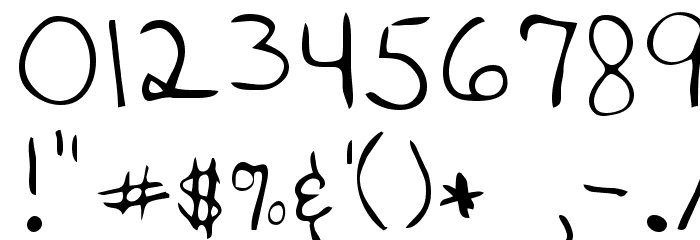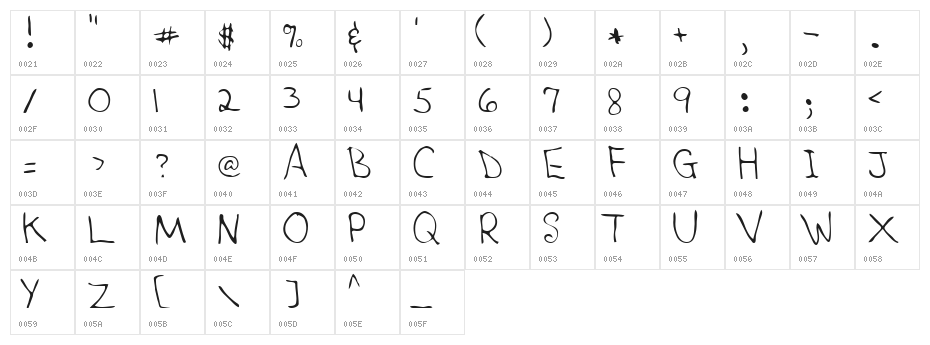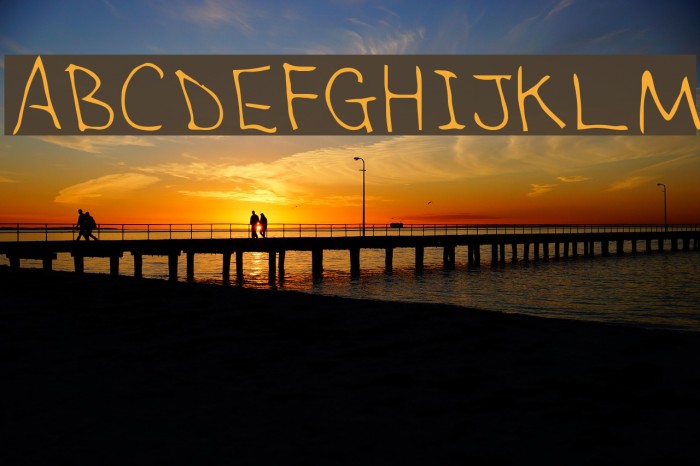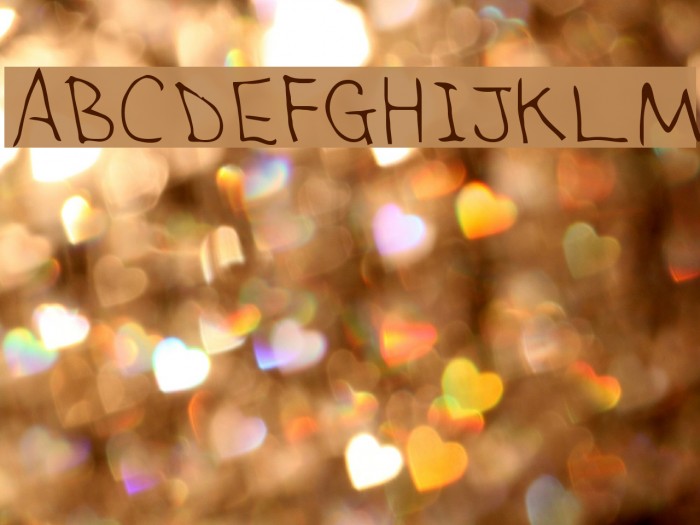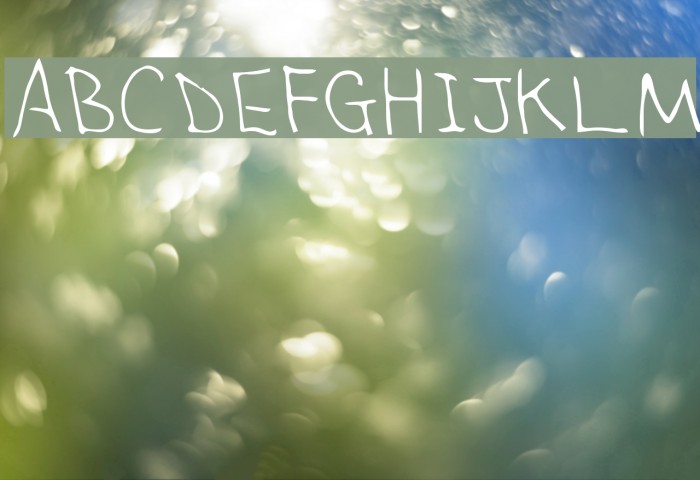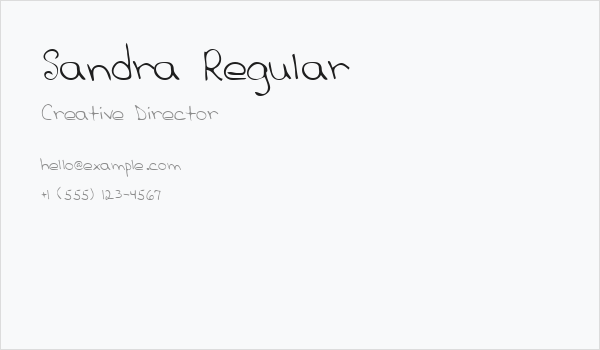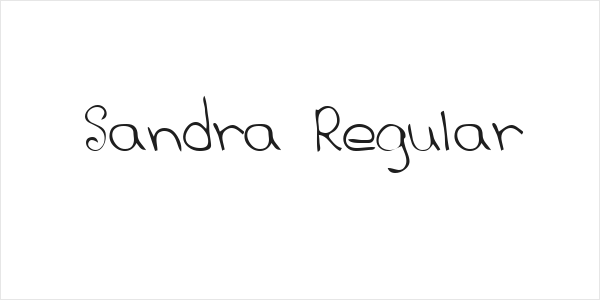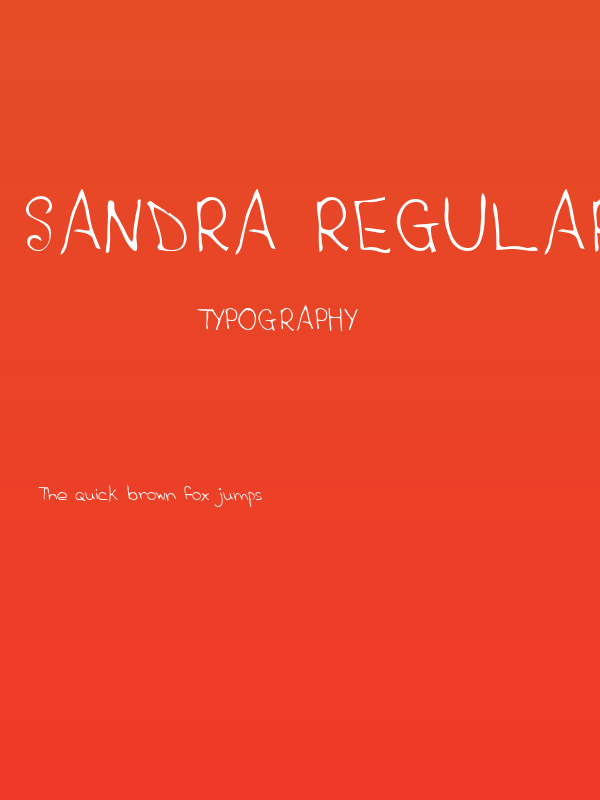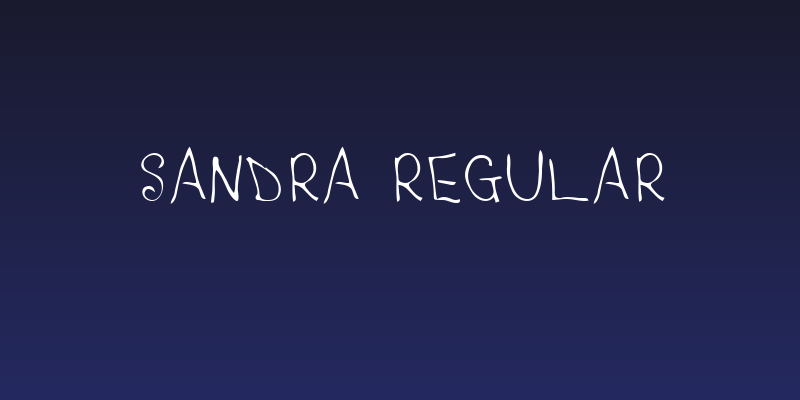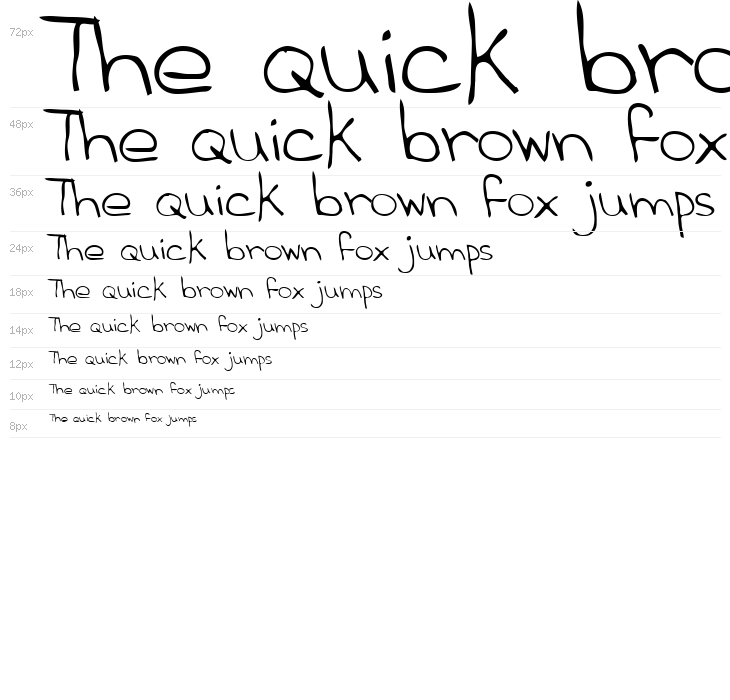
Sandra Regular Font
Sandra Regular Description
This font features a playful and informal handwritten style, characterized by its irregular strokes and whimsical appearance. The letters have a casual, almost childlike quality, with varying heights and widths that give it a dynamic and lively feel. The uppercase and lowercase letters maintain a consistent flow, while the numerals and special characters add to its quirky charm. The strokes are moderately thick, providing good readability while retaining a sense of fun and creativity. This font is perfect for projects that require a personal touch or a sense of spontaneity.
| Use Case | Logos, Invitations, Casual Text |
| Proposed Projects | Ideal for greeting cards, children's books, playful branding, and casual invitations. |